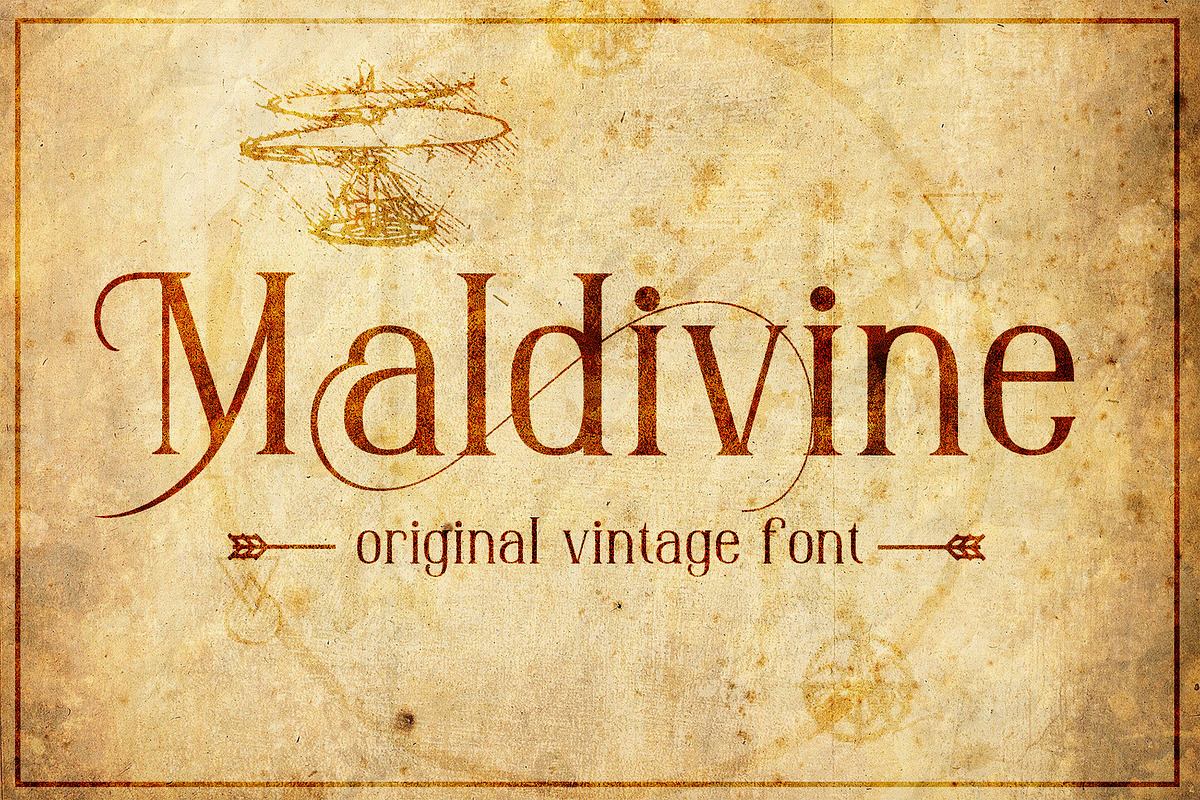
The Maldivine Font Free Download is a modern and elegant typeface with a clean, stylish design. Perfect for creating professional logos, branding materials, website text, invitations, and more, this font adds sophistication and clarity to your designs. Please note, for commercial use, a license must be purchased. You can download it for free for testing purposes.
With its sleek and contemporary feel, the Maldivine Font Free Download is ideal for projects that require a refined and polished look. Whether you're working on branding, print materials, or digital content, this font offers a modern aesthetic that complements a wide range of creative styles.